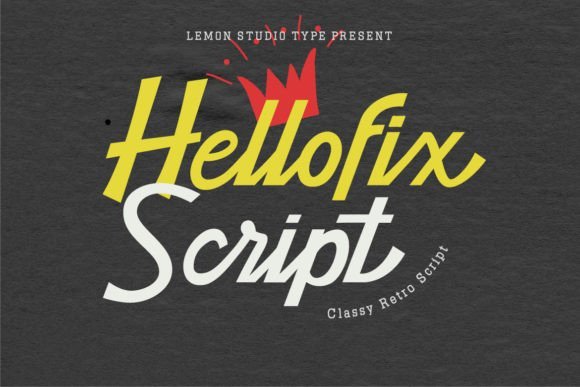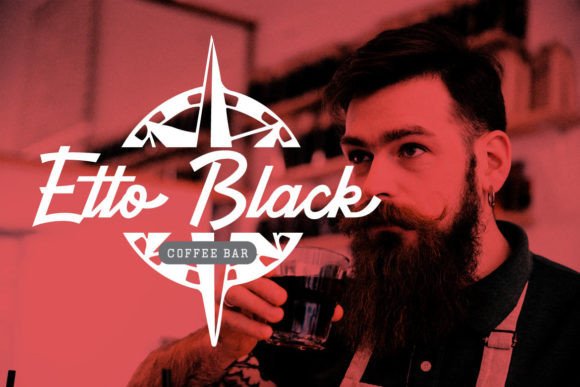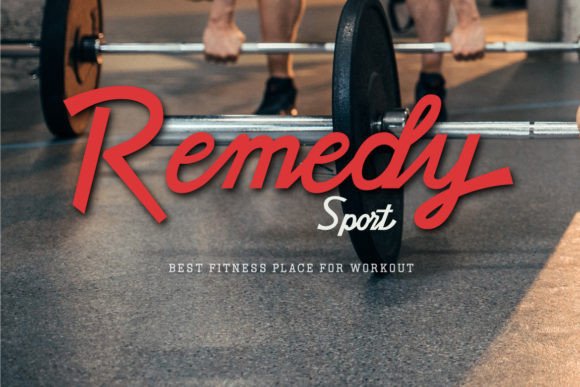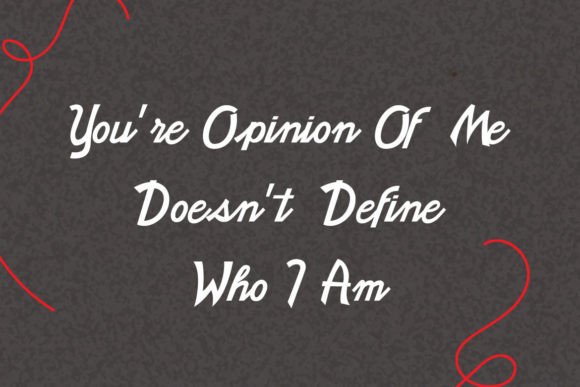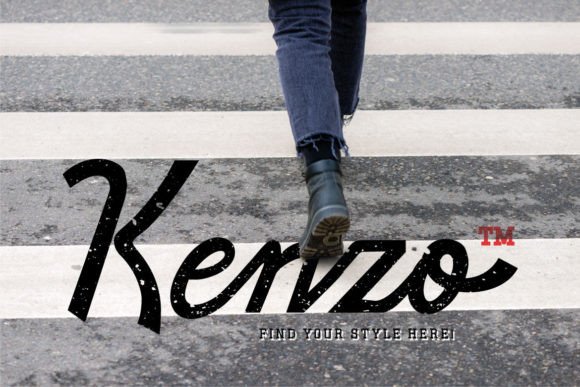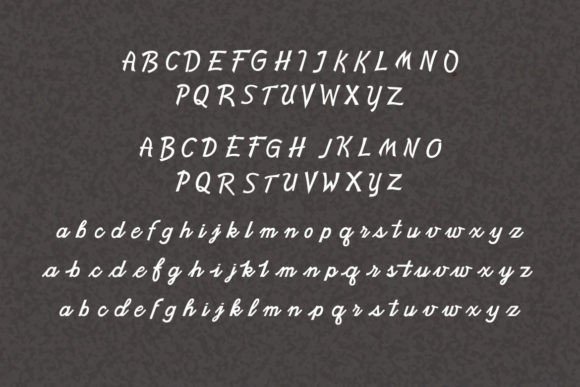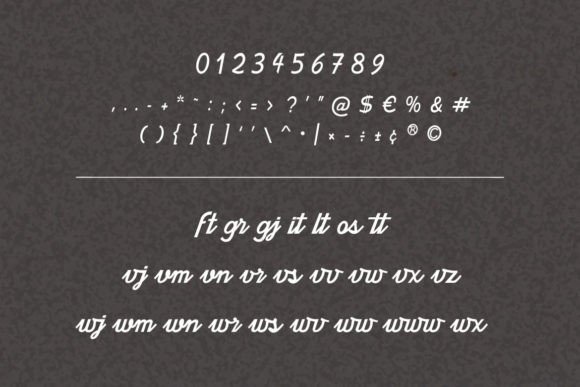
Do you remember the feeling of flipping through old vinyl records or dusty comic books, and being transported to a different era? The nostalgia and charm of retro aesthetics can be a powerful inspiration for designers. For those who want to capture that essence in their work, Hellofix Script Font is the perfect solution.
This retro script font boasts a classy style that’s both elegant and stylish, making it ideal for a variety of applications, from logotypes to book covers and concert posters. Whether you’re designing a game, sports brand, or magazine, Hellofix Script Font is sure to bring a touch of sophistication and charm to your work.
Hellofix Script Font Key Features
- Font Type: Script Font, ideal for creative and artistic projects
- Unique Characteristics: Hand-drawn design, elegant and sophisticated feel, perfect for invitations, quotes, and other creative applications
Hellofix Script Font Review
I recently had the chance to work with the Hellofix Script Font, and I must say, it’s been a mixed bag for me.
✨ One thing that really works well for this font is its elegant, cursive feel. It’s perfect for adding a touch of sophistication to logos, titles, and other design elements. The font’s fluid lines and organic shapes make it a great choice for creative projects.
✨ Another thing I appreciate about Hellofix is its versatility. It comes in a range of weights and styles, making it easy to adapt to different design needs. From light and airy to bold and dramatic, this font can be used in a variety of contexts.
⚠️ However, I do have some concerns about the font’s legibility. At smaller sizes, the letters can become difficult to read, and the connections between some of the letters can be a bit confusing. This might make it challenging to use Hellofix for body text or other large blocks of text.
⚠️ Additionally, I’ve noticed that the font doesn’t include many language-specific characters, which might limit its use for multilingual designs.
Overall, I think Hellofix Script Font is a great choice for designers who want to add a touch of elegance to their projects. However, it’s not without its limitations, and designers should be mindful of its potential drawbacks.
- Perfect for logos, titles, and other design elements
- Includes a range of weights and styles for versatility
- May be challenging to read at smaller sizes
- Limited language-specific characters
Hellofix Script Font: A Practical Application Guide
Hellofix Script Font is ideal for:
- Creative quotes and typography
- Handwritten-style labels and tags
- Watercolor or brush-style designs
For optimal results, use Hellofix Script Font in combination with other creative fonts and design elements.
Alternatives to Hellofix Script Font
Great Vibes is a modern, elegant script font ideal for creative projects, branding, and advertising. It has a friendly and approachable feel, making it perfect for invitations, posters, and social media graphics. Great Vibes is more cursive and flowing compared to Hellofix Script Font, which gives it a softer appearance.
Lobster is a bold, eye-catching script font suitable for headings, titles, and emphasis. It has a fun, playful feel, making it great for fashion, food, and entertainment branding. Lobster is more dramatic and attention-grabbing than Hellofix Script Font, which gives it a more dynamic appearance.
Playfair Display is a luxurious, elegant script font ideal for high-end branding, invitations, and special occasions. It has a classic, sophisticated feel, making it perfect for weddings, luxury goods, and fine dining. Playfair Display is more formal and refined compared to Hellofix Script Font, which gives it a more elegant appearance.
Alegreya Script
Alegreya Script is a beautiful, elegant script font suitable for creative projects, branding, and advertising. It has a flowing, handwritten feel, making it perfect for invitations, posters, and social media graphics. Alegreya Script is more refined and sophisticated compared to Hellofix Script Font, which gives it a more polished appearance.
Project Ideas Using Hellofix Script Font